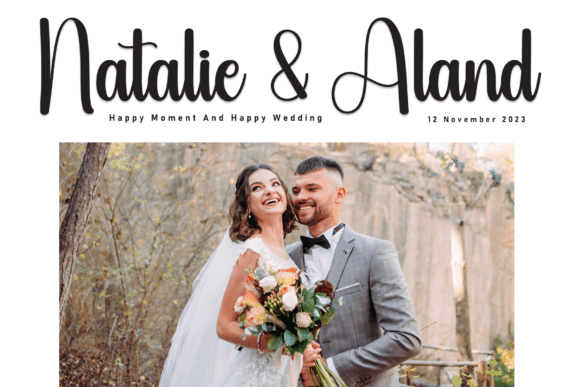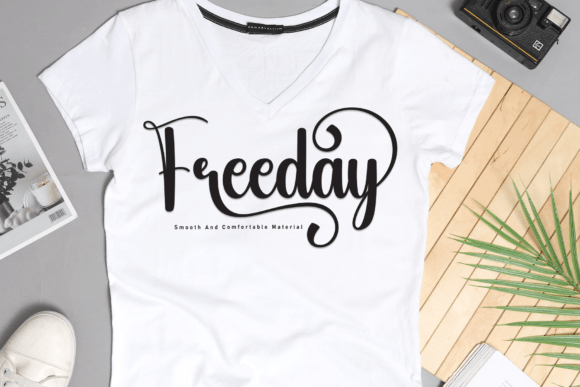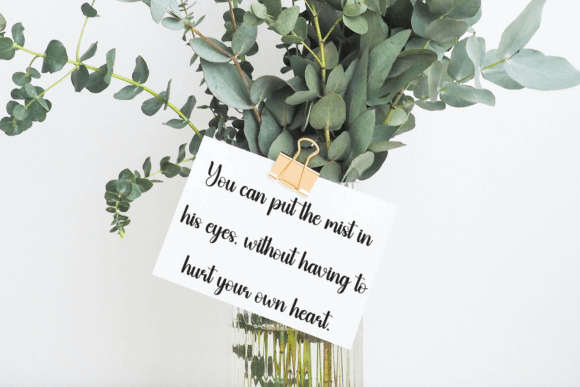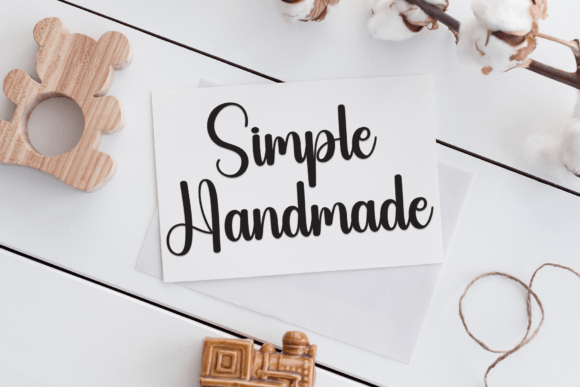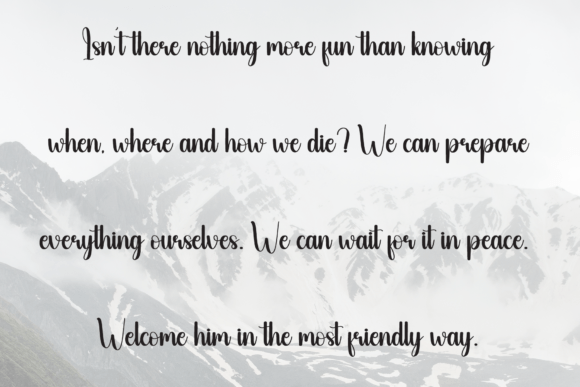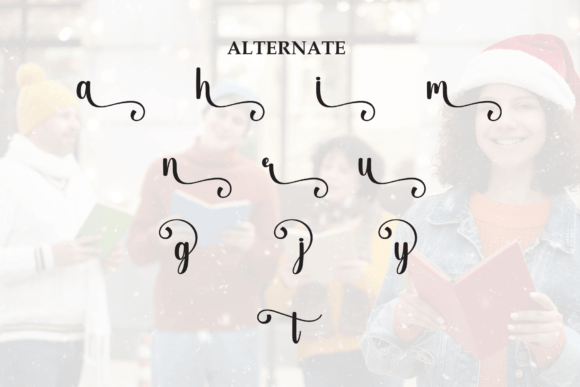
Introducing Caroling Christmas Font: A Timeless Handwritten Delight
Are you looking for a font that embodies the spirit of Christmas? Do you want to create eye-catching logos, branding, and quotes that capture the essence of the holiday season? Look no further than the Caroling Christmas Font! This lovely and timeless handwritten font is the perfect choice for designers and crafters who want to add a touch of elegance and whimsy to their designs.
A Unique and Beautiful Touch
One of the standout features of the Caroling Christmas Font is its unique and beautiful touch. Every letter has been carefully crafted to have its own distinct character, making it a true standout in the world of typography. Whether you’re creating a logo, a quote, or a branding campaign, this font is sure to make your design come alive! The intricate details and flowing lines of the Caroling Christmas Font are sure to capture the attention of your audience and leave a lasting impression.
The Caroling Christmas Font is a versatile font that is perfect for a wide range of design projects. Whether you’re a professional designer or a crafter looking to create unique and personalized gifts, this font is sure to meet your needs. With its elegant and whimsical feel, it’s perfect for creating:
- Eye-catching logos and branding campaigns
- Beautiful quotes and typography art
- Personalized gifts such as mugs, t-shirts, and cards
- Seasonal decorations and holiday-themed designs
Why Choose Caroling Christmas Font?
So why choose the Caroling Christmas Font over other fonts on the market? Here are just a few reasons why this font stands out:
- Unique and handmade feel: The Caroling Christmas Font has a truly unique and handmade feel that sets it apart from more generic fonts.
- Elegant and whimsical: This font has a perfect balance of elegance and whimsy, making it perfect for a wide range of design projects.
- High-quality design: Each letter has been carefully crafted to ensure that the font is of the highest quality and looks great in any design.